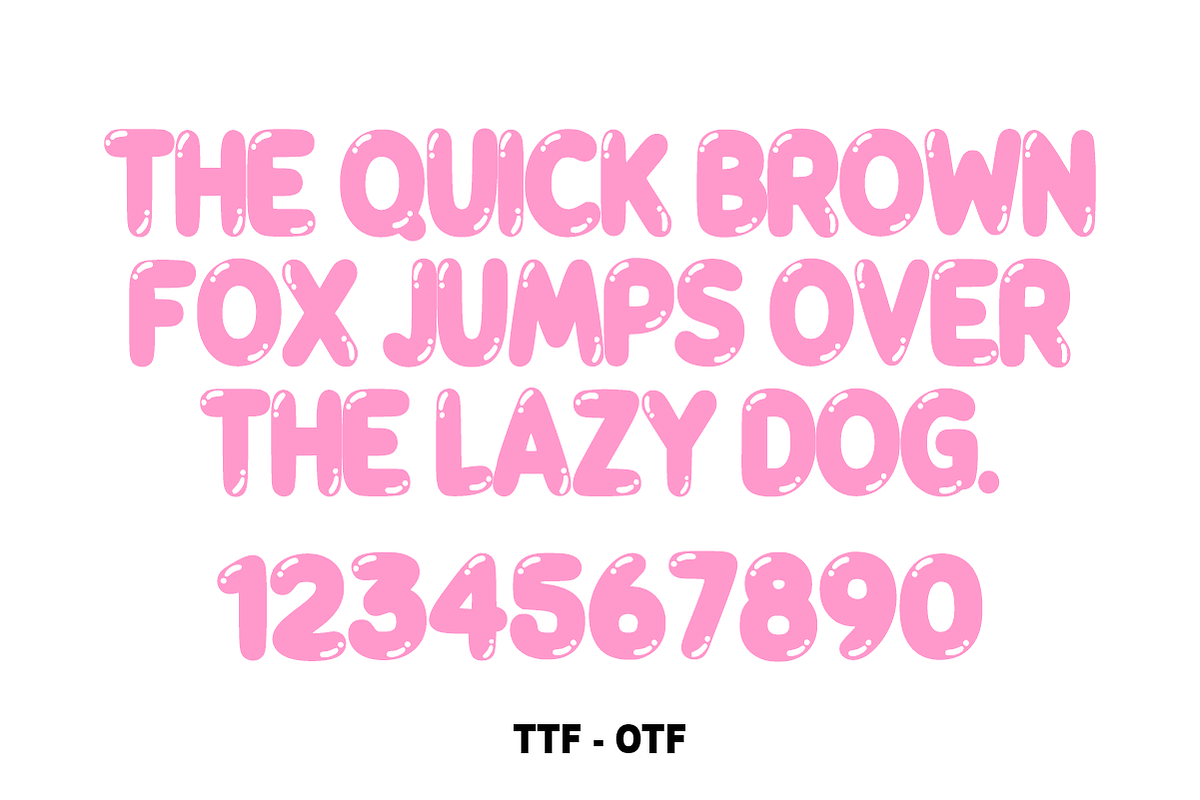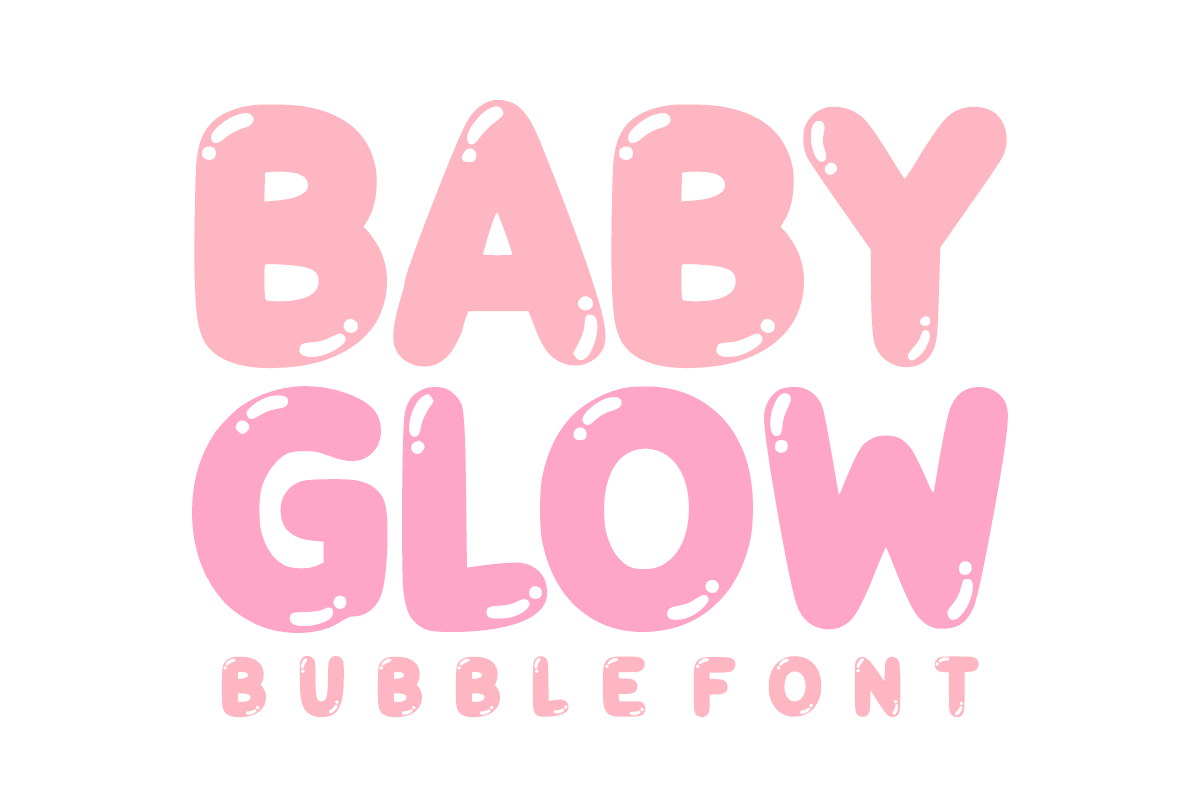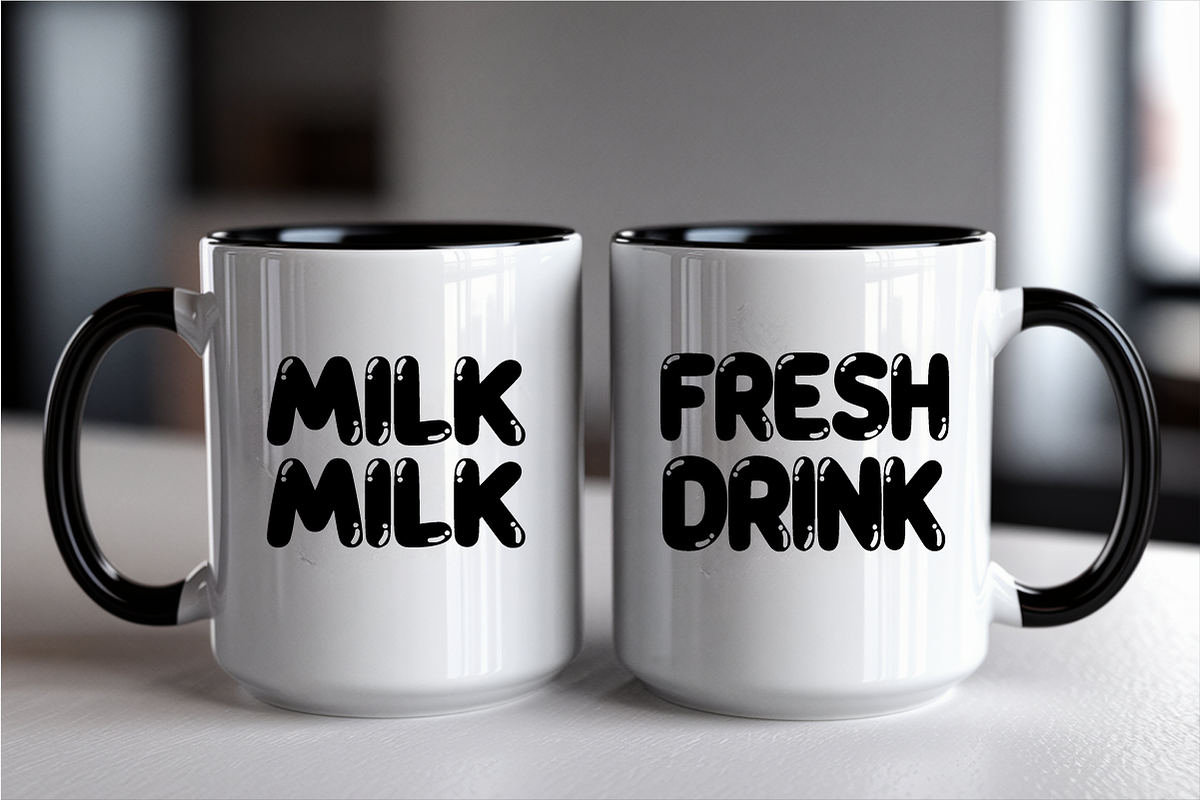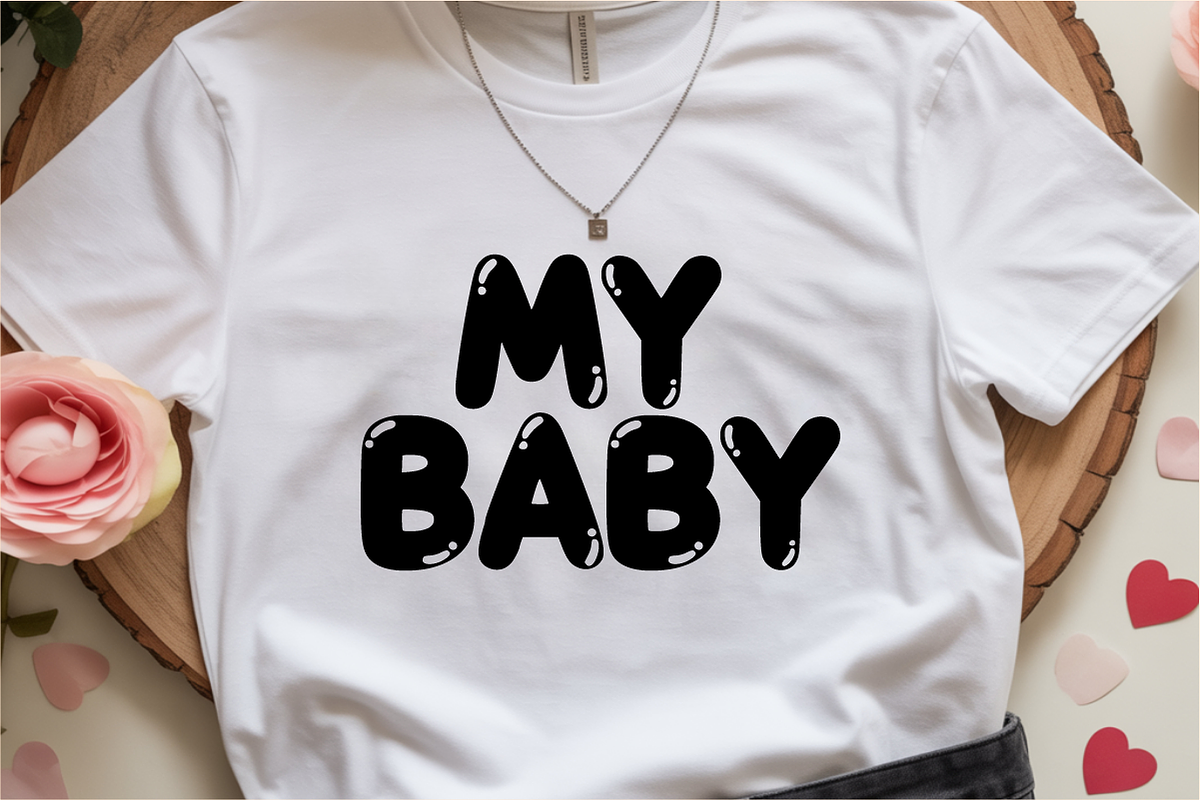
Baby Glow – Bubble Display Font
Baby Glow – Playful & Sweet Bubble Display Font ✨🎈
Baby Glow is an adorable bubble-style display font designed to capture the essence of childhood fun and sweetness. With its thick, rounded letterforms and friendly silhouette, this font is perfect for creators looking to add a playful and approachable touch to their designs. Whether you are working on nursery decor, branding for kids' products, or high-energy social media content, Baby Glow provides a professional yet whimsical look that stands out.
Bubbly & Friendly Design: The soft, rounded edges make it ideal for projects targeting children, parents, and fans of cute aesthetics.
High Impact & Visibility: Its bold, thick structure ensures your titles and headers are eye-catching and easy to read.
Versatile Application: While perfect for kids' themes, its clean execution also works beautifully for modern "kawaii" and handmade branding.
👶 Kids & Nursery Decor: Personalized wall art, name signs, and playful nursery posters.
🎉 Party Invitations: Birthday cards, baby shower invites, and festive event flyers.
🏷️ Product Packaging: Stickers, labels, and branding for toy stores, sweet shops, or handmade crafts.
📸 Social Media Content: Eye-catching Instagram stories, YouTube thumbnails, and playful Pinterest pins.
👕 Merchandise & Apparel: Bold graphics for kids' t-shirts, hoodies, and tote bags.
Character Set: Friendly All-Caps Uppercase Letters (A-Z).
Numbers & Symbols: Complete set of numerals (0-9) and essential simple punctuation.